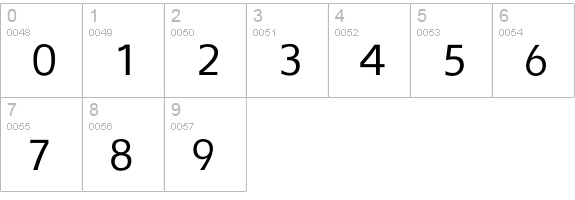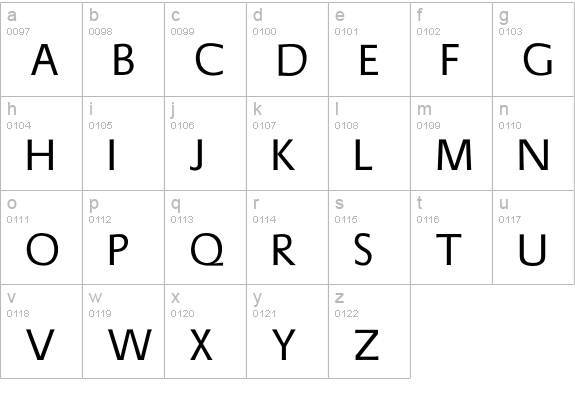
Barrel Font Details
Barrel font is a stunning and versatile typeface that exudes a sense of elegance and sophistication. This unique font features beautifully crafted letterforms with a touch of vintage charm, making it perfect for a wide range of design projects. Its bold and eye-catching appearance is sure to make a statement and captivate your audience. The best part? Barrel font is completely free to download at FontsMarket.com. Whether you're working on a branding project, poster design, or any other creative endeavor, this font will elevate your work and give it a distinct personality. With its seamless blend of classic and modern elements, Barrel font is a must-have in your font collection. Download it today and unleash your creativity with this exceptional typeface.